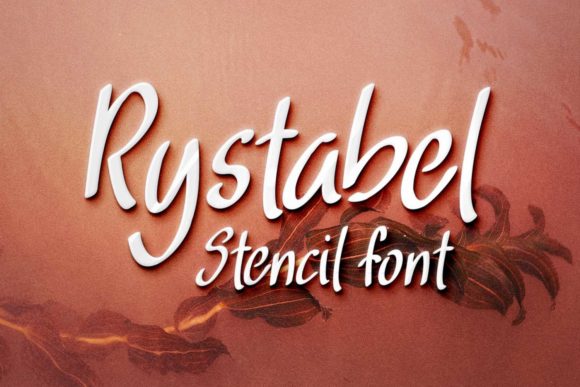
Introducing Rystabel Font - the latest addition to our collection that you wouldn't want to miss! This elegant and sophisticated handwritten stencil font is perfect for those looking for a modern and stylish touch in their designs. Created by the talented Eva Barabasne Olasz, Rystabel Font is designed to capture the essence of simplicity, making it perfect for various design styles.
Looking for the best font for Sublime Text 3? Rystabel Font has got you covered! This versatile font is perfect for a wide range of projects - from logos, invitations, and even social media graphics. Its neat and simple style is guaranteed to add a touch of sophistication to any design.
Rystabel Font is carefully crafted to ensure that every character is unique and beautiful, making it a perfect choice for those who value creativity and quality. This font is perfect for designers, bloggers, and anyone who loves to add a touch of elegance to their work.
Get ready to fall in love with Rystabel Font! Whether you're looking to create a stunning website, a beautiful invitation, or a professional logo, this font has got you covered. With its captivating and emotional appeal, you're sure to impress your clients and customers.